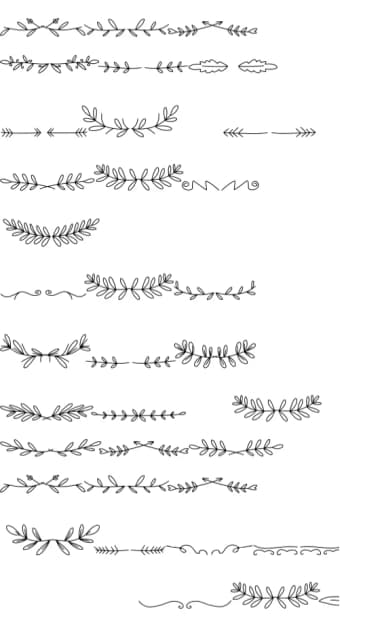
1 / 5About Retro Divider Font
Retro Divider by CraftedType Studio is a botanical dingbat collection that brings hand-drawn botanical motifs and ornamental flourishes to your design toolkit. The font's leaf and wildflower elements work beautifully as decorative dividers and framing elements, making it ideal for wedding invitation suites, DIY craft signage, and ornamental packaging designs. Each character feels organic and nature-inspired, offering the kind of detail you'd expect from a thoughtful illustrator rather than a computer algorithm. The design captures that nostalgic quality many designers chase when building pieces with warmth and genuine personality.
Use these glyphs to frame text on rustic greeting cards, add botanical accents to Etsy product listings, or build layered compositions for sticker sheets and vinyl designs. The variety of leaf and flower shapes gives you room to experiment with different arrangements and layering without feeling repetitive or forced. This font shines when you're working on projects that need a softer, more handmade aesthetic: indie beauty labels, wildflower-themed event materials, romantic stationery suites, or anything where a nature-inspired touch strengthens the overall visual story. The ornamental quality makes these characters feel like genuine design elements rather than decoration. Get Retro Divider on Creative Fabrica and start building designs that feel truly hand-crafted.
Retro Divider Font is a versatile dingbats font that works for both headings and body text. Pair it with a contrasting sans-serif or serif font to add visual interest and a clear distinction between titles and body copy.